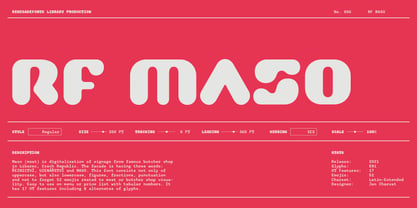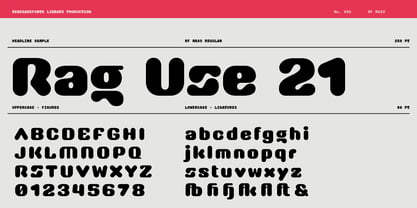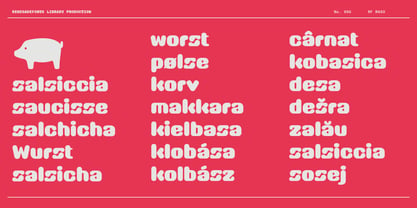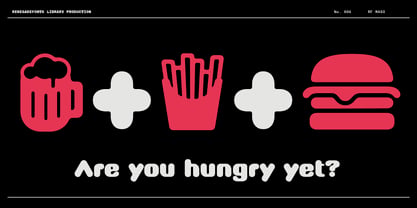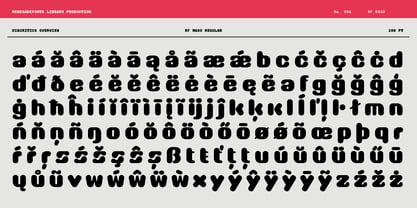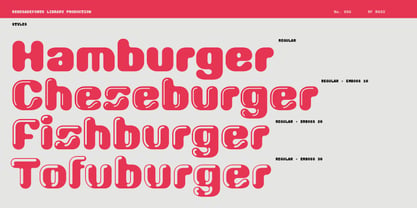
RF Maso
by Renegade Fonts
The RF Maso Font Family was designed by Jan Charvát and published by Renegade Fonts. RF Maso contains 4 styles and family package options. More about this family
Maso (meat) is digitalization of signage from famous butcher shop in Liberec, Czech Republic. The facade is having three words: ŘEZNICTVÍ, UZENÁŘSTVÍ and MASO. This font consists not only of uppercase, but also lowercase, figures, fractions, punctuation and not to forget 52 emojis reated to meat or butcher shop visuality. Easy to use on menu or price list with tabular numbers. It has 17 OT features including 8 alternates of glyphs.
Designers: Jan Charvát
Foundry: Renegade Fonts